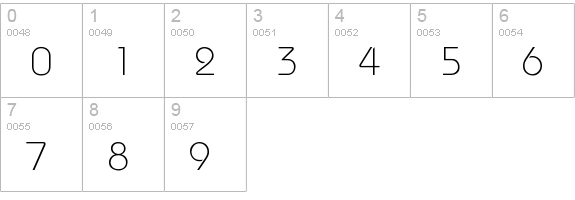
TR Bahamas Light Plain Font Details
TR Bahamas Light Plain is a refined, elegant variant in the TR typeface family \xE2\x80\x94 well suited to elegant body text, refined sub-headings, and luxury branding.
TR Bahamas Light Plain is a modern and elegant font that exudes sophistication and simplicity. With its clean lines and gentle curves, this typeface is perfect for creating sleek and contemporary designs. The light weight of the font adds a delicate touch, making it suitable for a variety of projects such as branding, advertising, and editorial design. What sets TR Bahamas Light Plain apart is that it is available for free download at FontsMarket.com. This means you can easily access and use this stylish font in your projects without any cost. Whether you're a designer looking to add a touch of finesse to your work or a business owner aiming to enhance your brand identity, TR Bahamas Light Plain is a versatile choice that won't disappoint. Download it today and elevate your designs with this exquisite typeface.